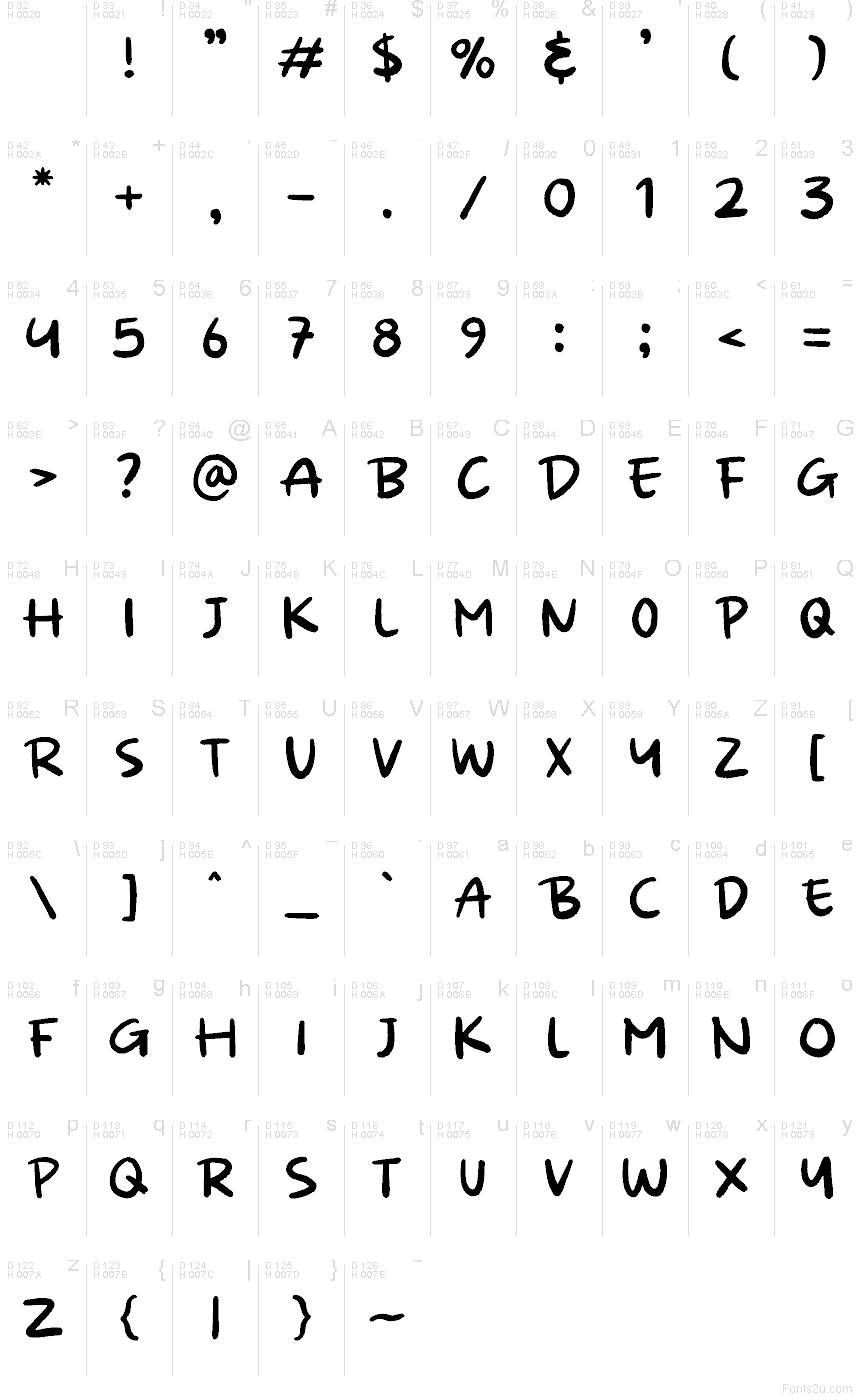
VIENTO
Viento font by Gracetype Studio is a free brush font that gives you that loose, hand-painted energy without sacrificing clarity. Its thick, inky strokes feel like they were pulled straight from a loaded marker—casual, a bit wobbly, yet steady enough to read at a glance. The rounded shapes and generous spacing keep it friendly and warm, making it easy to drop into branding that wants personality, not polish.
Using Viento, you can quickly bring life to logos, product packaging, poster titles, social media graphics, t-shirt designs, and greeting cards. This free font works beautifully when you let it breathe at larger sizes and pair it with a simple, neutral sans serif for any supporting text.